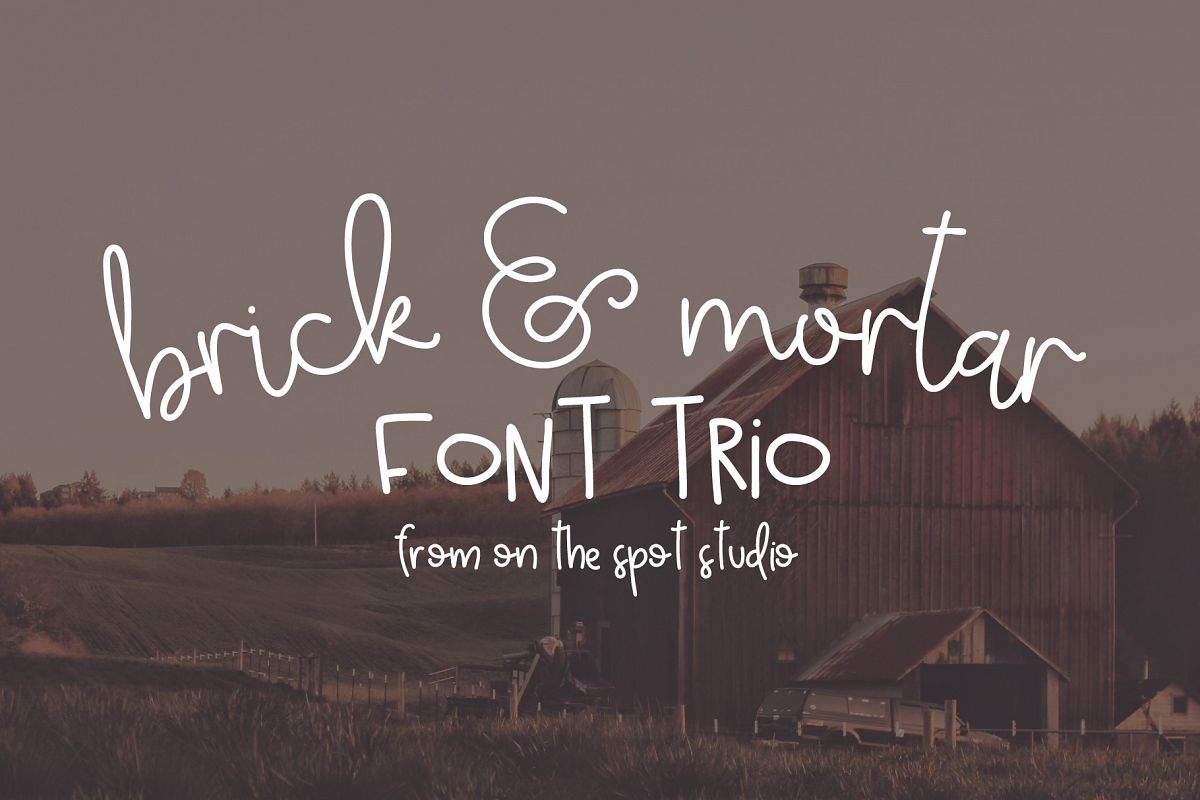
Brick & Mortar Trio
The Brick & Mortar Trio was created with small businesses in mind! Simple script, a quirky alphabet and an all caps hand written serif font.
Script : Full Alpha, Punctuation, Numbers, Etc.
Simple Sans : Upper and Lowercase Alpha
Boxwood : Single Alpha Lowercase
Brick & Mortar Trio
By On The Spot Studio